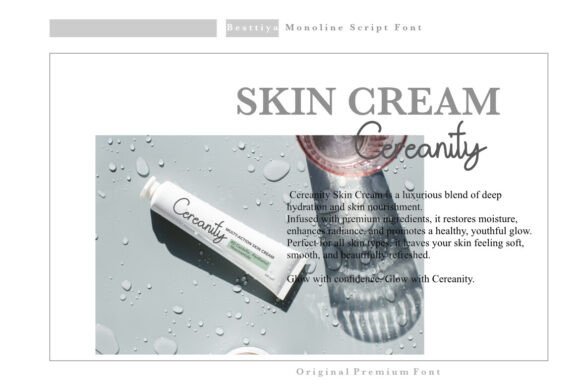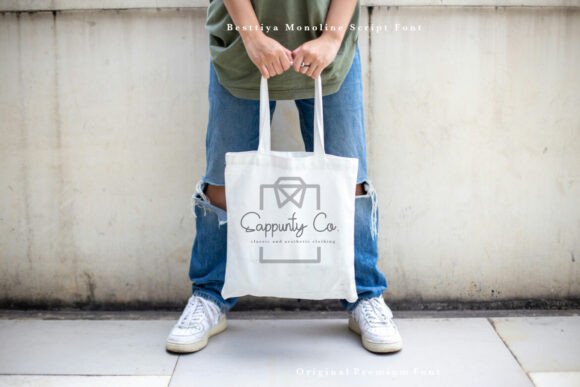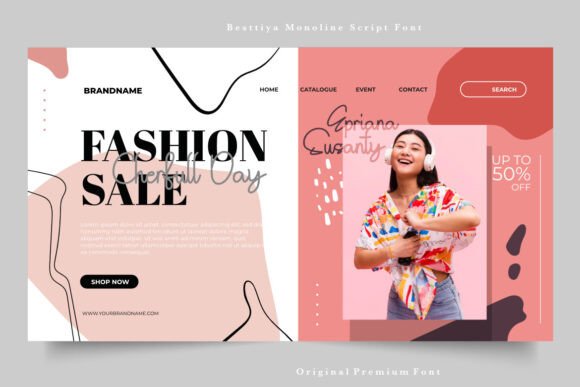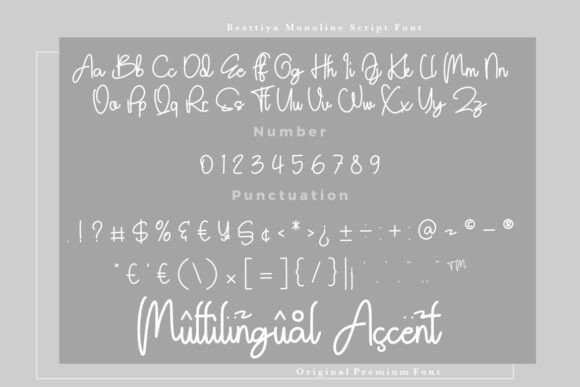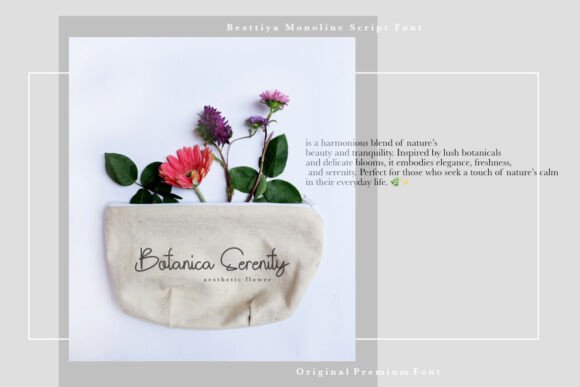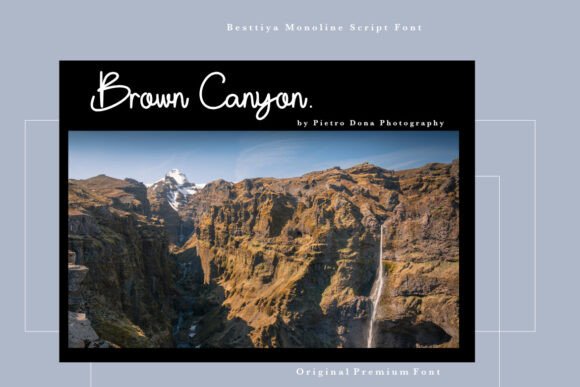
Have you ever been stuck trying to find the perfect font to elevate your design? You know, that moment when you’re pouring your heart and soul into a project, and all it needs is that one special touch to make it truly unforgettable? That’s where the Besttiya Font comes in – a premium-quality typeface that’s designed to bring elegance and precision to your creative endeavors.
This stylish monoline script is more than just a font – it’s a tool that can help you craft sophisticated designs, add a personal touch to your projects, or simply make a statement. With its versatility and charm, the Besttiya Font is a valuable asset for designers who want to take their work to the next level.
Besttiya Font Key Features
- Font Family: Besttiya Font offers a unique and elegant script font, ideal for creative and artistic projects.
- Unique Characteristics: The Besttiya Font features a distinctive and ornate design, with intricate details and flourishes, making it perfect for adding a touch of elegance to designs.
Designer Review: Besttiya Font
Overall, I’m impressed with the Besttiya Font. It’s a beautiful, elegant script font that can add a touch of sophistication to any design. ✨ The fluid, cursive lines make it perfect for titles, headings, and other emphasis text.
The Besttiya Font is highly legible, even at small sizes, and its OpenType features allow for some amazing ligatures and swashes. ✨ These can really elevate the design and make it stand out. Additionally, the font is highly customizable, making it a great choice for designers who want to add a personal touch.
- ⚠️ Limited language support: The Besttiya Font may not support some non-English languages, which could be a limitation for designers working on multilingual projects.
- ⚠️ Not ideal for body text: While the font is beautiful for titles and headings, it may not be the best choice for body text due to its cursive nature and potential legibility issues at smaller sizes.
Overall, I think the Besttiya Font is a great addition to any designer’s toolkit. While it has some limitations, its elegance and customization options make it a great choice for designers looking to add a touch of sophistication to their designs.
Besttiya font is perfect for creating elegant and modern designs. To get the most out of it, use it in combination with bold colors and simple backgrounds. You can also experiment with different font sizes and styles to create a unique look.
Besttiya font is ideal for:
– Luxury branding and packaging
– Fashion and beauty design
– Modern typography and art
Alternatives to Besttiya Font for Designers
Great Vibes is a beautiful, elegant script font perfect for creating a luxurious and sophisticated feel in designs. It features flowing connections and a high level of customization, making it ideal for wedding invitations, branding materials, and high-end packaging. Great Vibes is a great alternative to Besttiya Font for designers who want a more refined and polished look.
Pacifico is a stunning, modern script font that exudes a sense of relaxation and tranquility. Its unique, flowing connections and organic feel make it perfect for creating a beachy, laid-back vibe in designs. Pacifico is a great alternative to Besttiya Font for designers who want a more casual and approachable look.
Carolyna Pro is a luxurious, elegant script font that features a high level of customization and sophistication. Its flowing connections and refined feel make it perfect for creating high-end branding materials, packaging, and invitations. Carolyna Pro is a great alternative to Besttiya Font for designers who want a more polished and refined look.